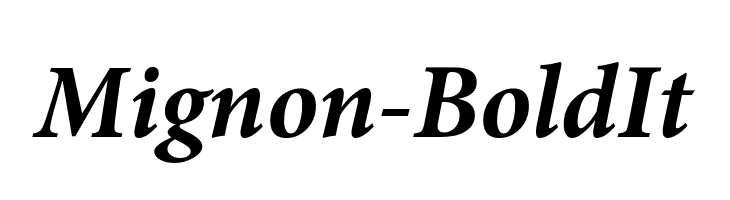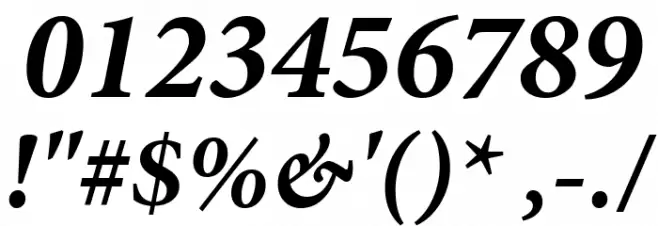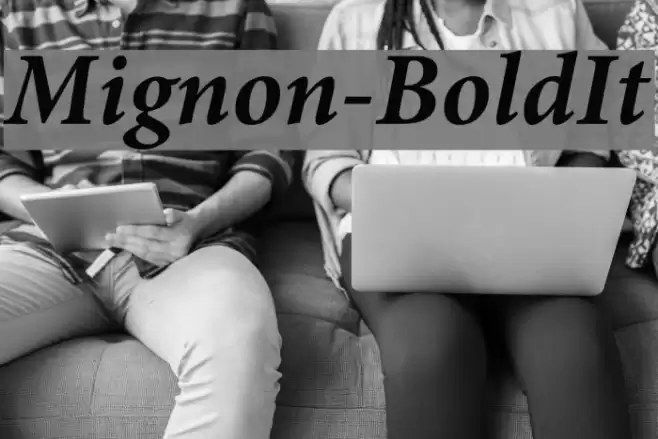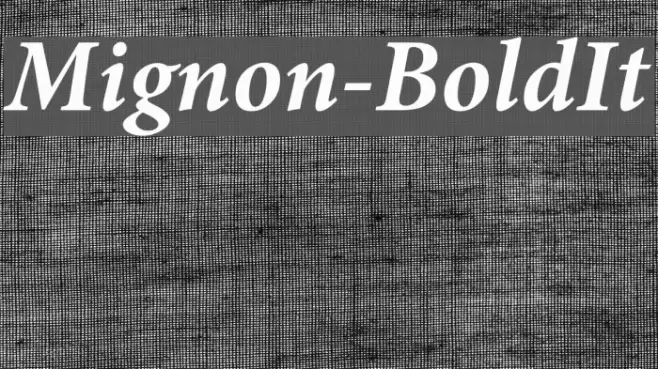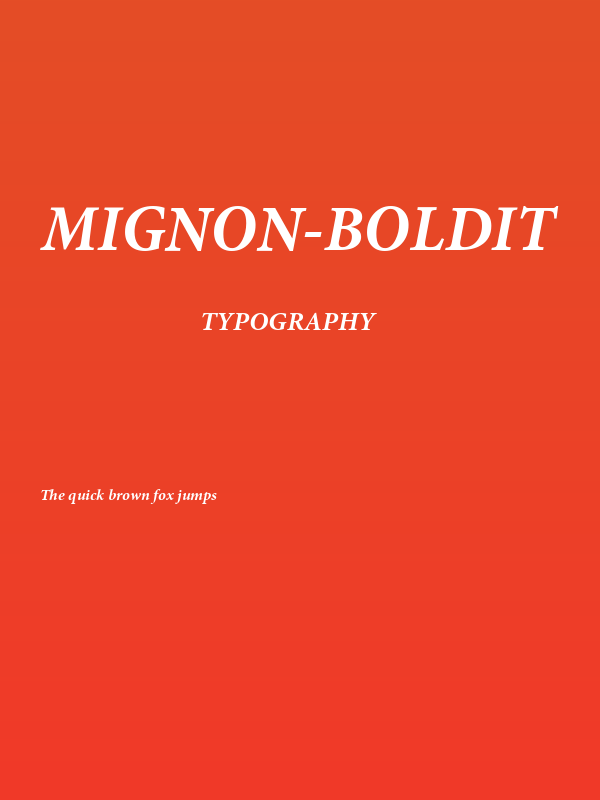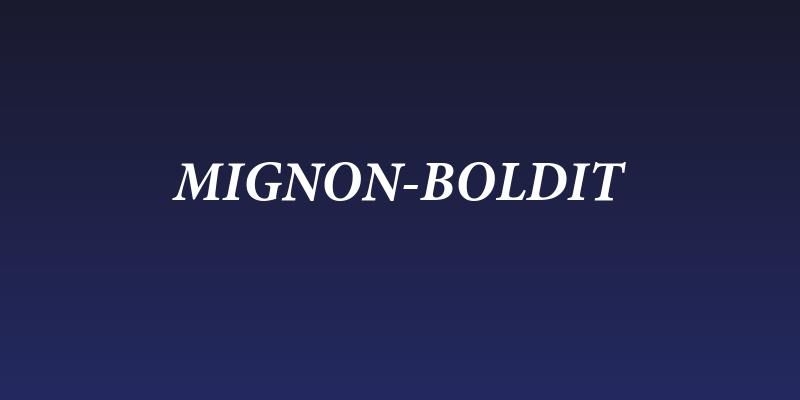
Mignon-BoldIt Font
Mignon-BoldIt Description
This font features a bold and italicized style, characterized by its elegant and flowing serifs. The uppercase letters exhibit a strong presence with slightly exaggerated curves, while the lowercase letters maintain a consistent rhythm and balance. The numerals are well-proportioned, offering a classic yet modern appeal. Special characters are distinct and harmonize well with the overall design, making it versatile for various applications. The font's contrast in stroke thickness adds to its readability and aesthetic appeal, making it suitable for both digital and print media.
| Use Case | Headlines, Logos, Editorial design |
| Proposed Projects | Ideal for branding, editorial design, book covers, and elegant invitations. |